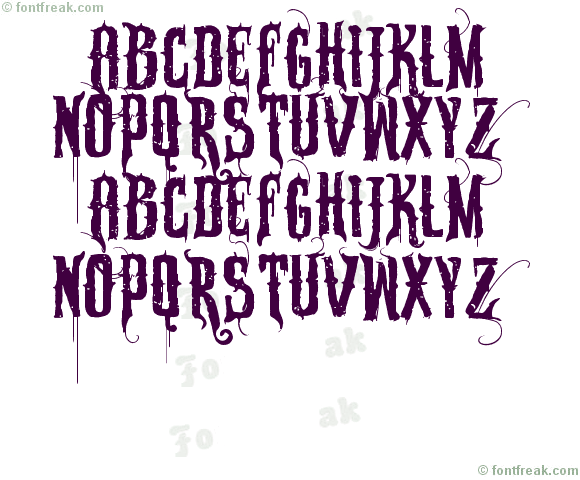
VTKS SABONETE
VTKS SABONETE is a visually striking display font created by Douglas Vitkauskas, characterized by its unique handwritten style. This font falls into the decorative category, making it an ideal choice for projects that require a touch of personality and flair. The letters feature a playful, fluid design with varying stroke weights and charming decorative elements that lend an organic feel. The contrast between thick and thin strokes adds visual interest, while the spacing is thoughtfully designed to ensure legibility, even in larger sizes.
This font is particularly well-suited for a variety of creative applications. Graphic designers may find it perfect for crafting wedding invitations, where its whimsical style can enhance the romantic theme. Additionally, VTKS SABONETE works beautifully on restaurant menus, adding a distinct character that can elevate the dining experience. It can also be a fantastic choice for movie posters, providing a bold statement that captures attention. Content creators looking to add personality to their social media graphics or branding materials will appreciate its ability to convey warmth and creativity.
What sets the VTKS SABONETE font apart is its delightful blend of artistry and functionality. It stands out in a crowded marketplace of fonts, offering a unique aesthetic that can transform ordinary text into a captivating visual experience. For those interested in enhancing their design toolkit, the VTKS SABONETE font free download is an opportunity not to be missed.